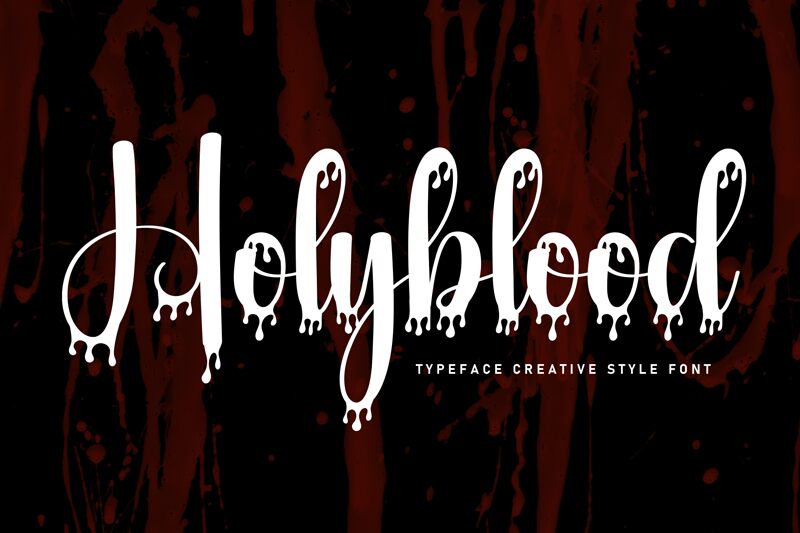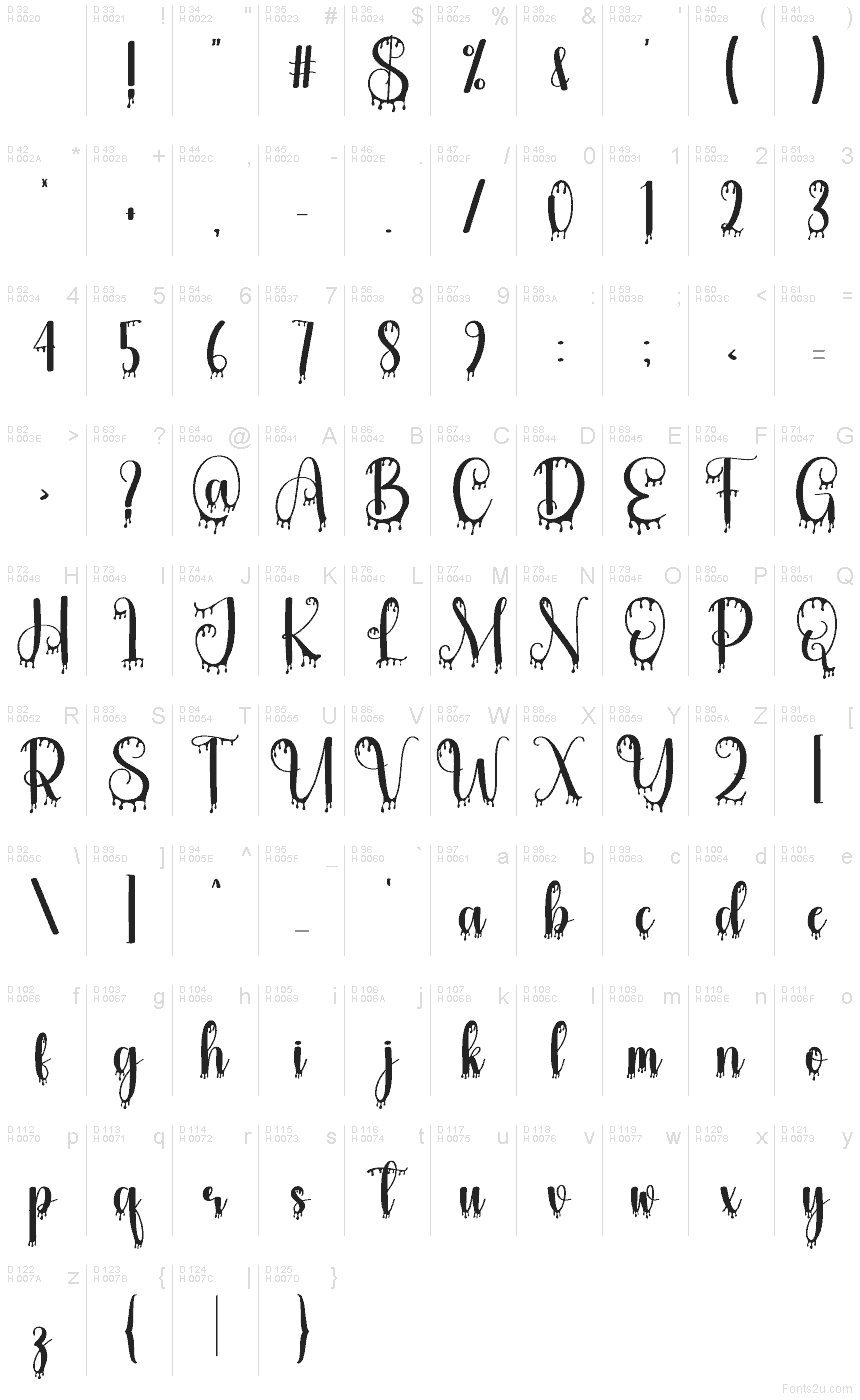
Holyblood
Holyblood font by Scratchones is a free Halloween display script built for spooky statements. Its tall, inky strokes curl like ribbon and then melt into slick drips, giving a playful gore effect without losing legibility. The rhythm is bouncy and connected, so titles read as one syrupy sweep while the droplets add just enough scare.
Using Holyblood, headlines jump on party invites, haunted house posters, costume shop signage, candy labels, themed social posts, and seasonal merch. The generous loops create drama at larger sizes; keep it big and let the drips breathe. Pair this free font with a plain, condensed sans to handle details and dates.